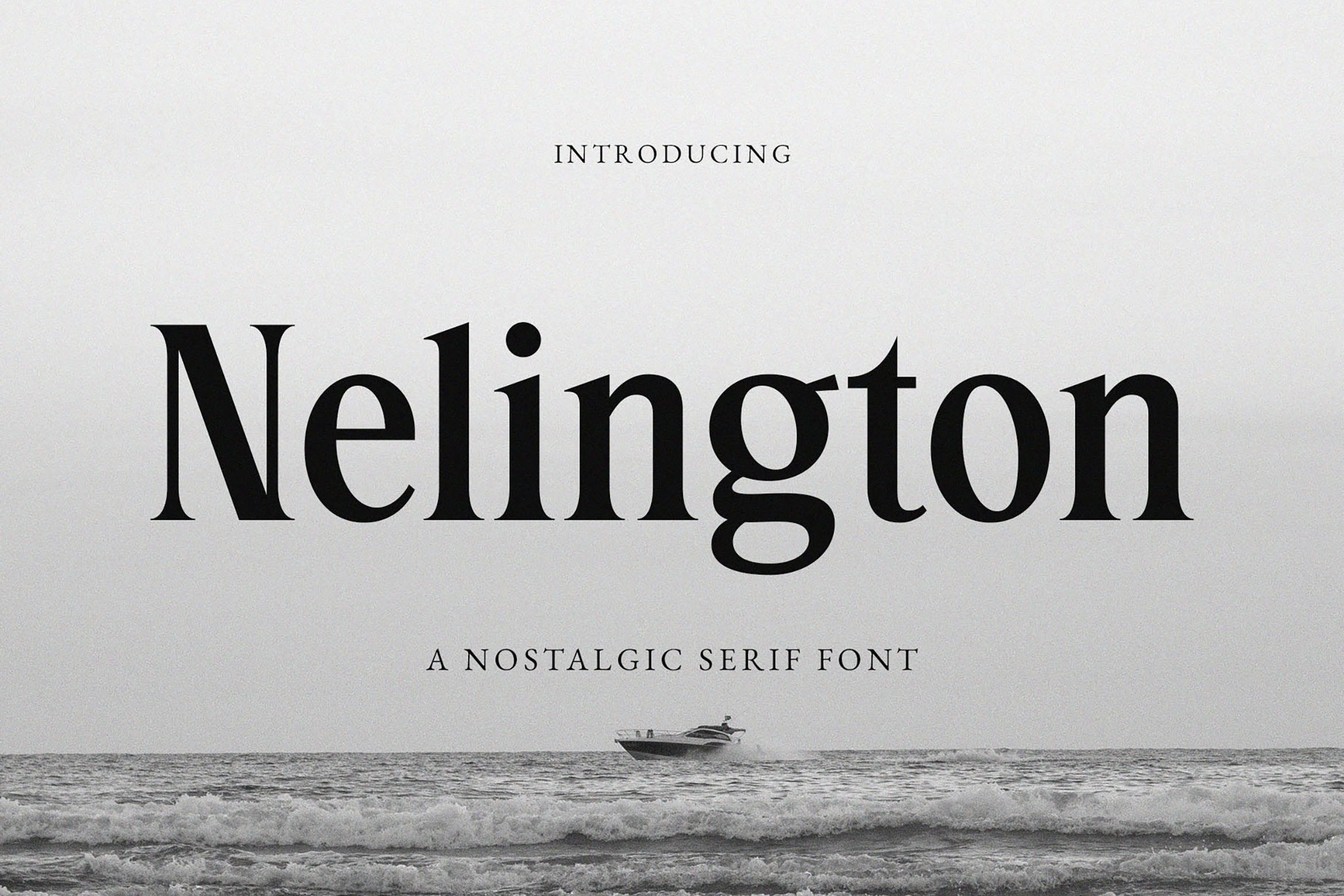
Introducing our new Nelington, modern serif font with elegant style this is perfect for branding, logos, invitation, magazines, product packaging and more.
Nelington – Nostalgic Serif Font